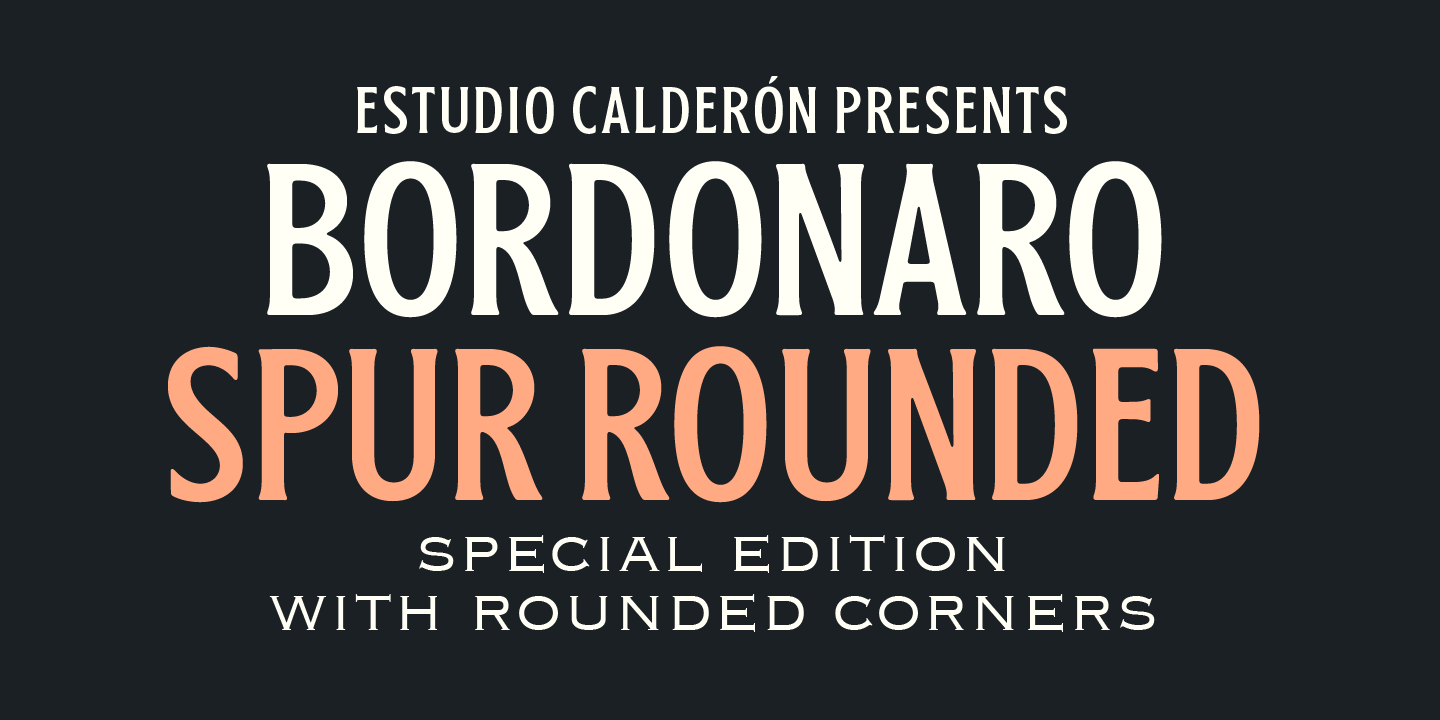
Bordonaro Spur Rounded Font Free Download is a clean, modern serif typeface with rounded edges that offers a friendly yet professional look. Its carefully crafted letterforms blend traditional serifs with a soft, rounded finish, giving it a contemporary feel while maintaining readability and style. This versatile font is perfect for logos, branding, packaging, editorial layouts, and more.
The rounded spurs in the Bordonaro Spur Rounded Font bring warmth and approachability to your designs, making it ideal for projects that require a blend of elegance and friendliness. It works well for both print and digital formats, ensuring your message is clear and appealing in any medium.
Incorporate Bordonaro Spur Rounded Font Free Download into your next design project to add a stylish and inviting touch that stands out with its unique rounded serif structure.